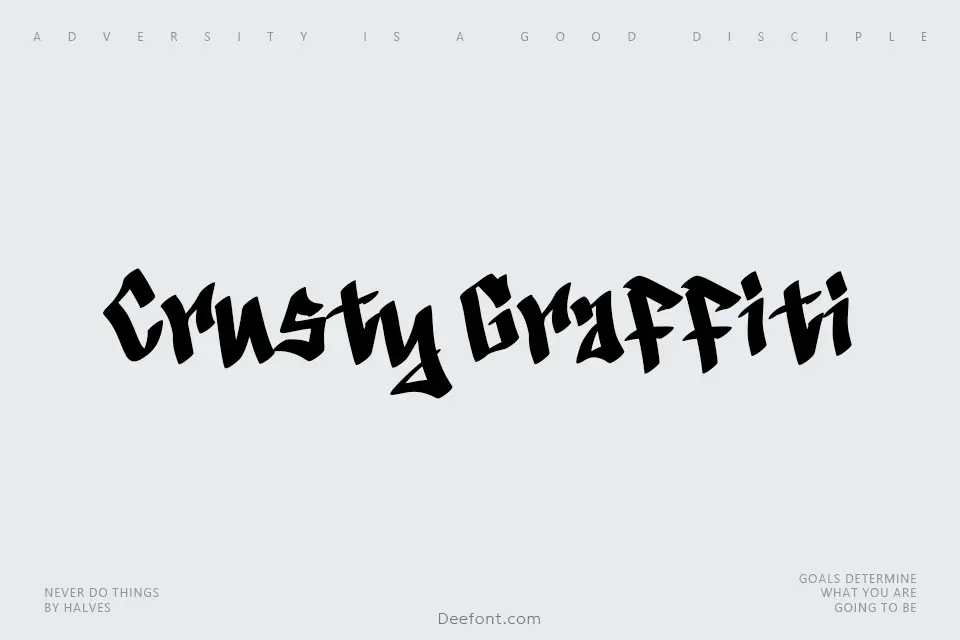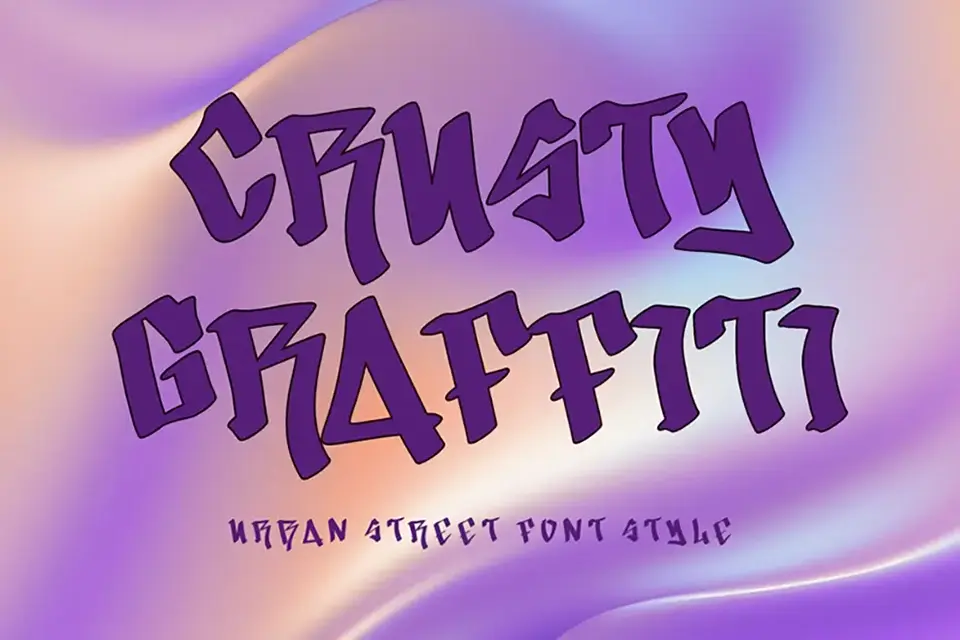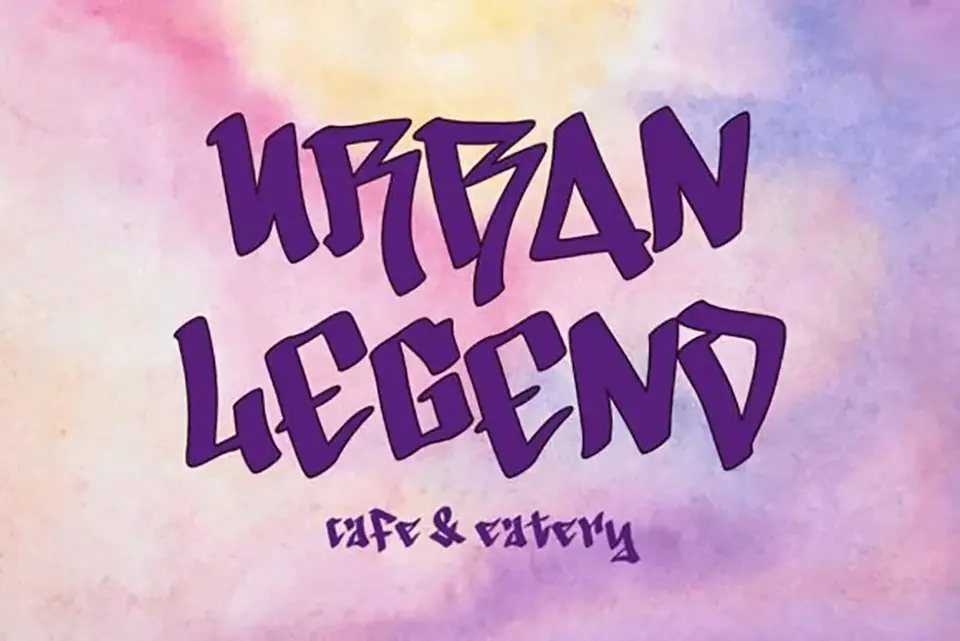
Crusty Graffiti Font
Crusty Graffiti is a distinctive graffiti script font designed for creative street-style typography and urban branding. This typeface features authentic tag-inspired letterforms with a rough, textured aesthetic, making it ideal for street art, murals, metal concerts, rock music, business branding, logos, banners, posters, stickers, and creative design projects. With comprehensive character support including uppercase, lowercase, numerals, punctuation marks, and multilingual support, it delivers bold visual impact for contemporary creative applications.